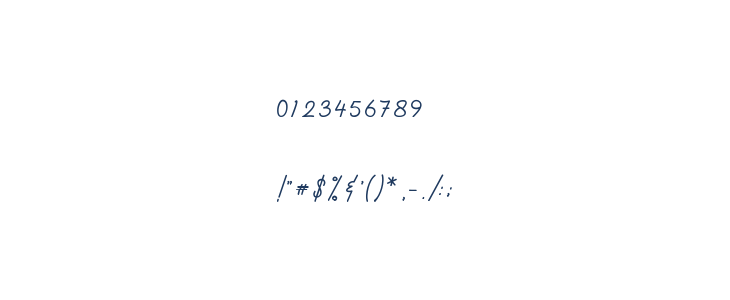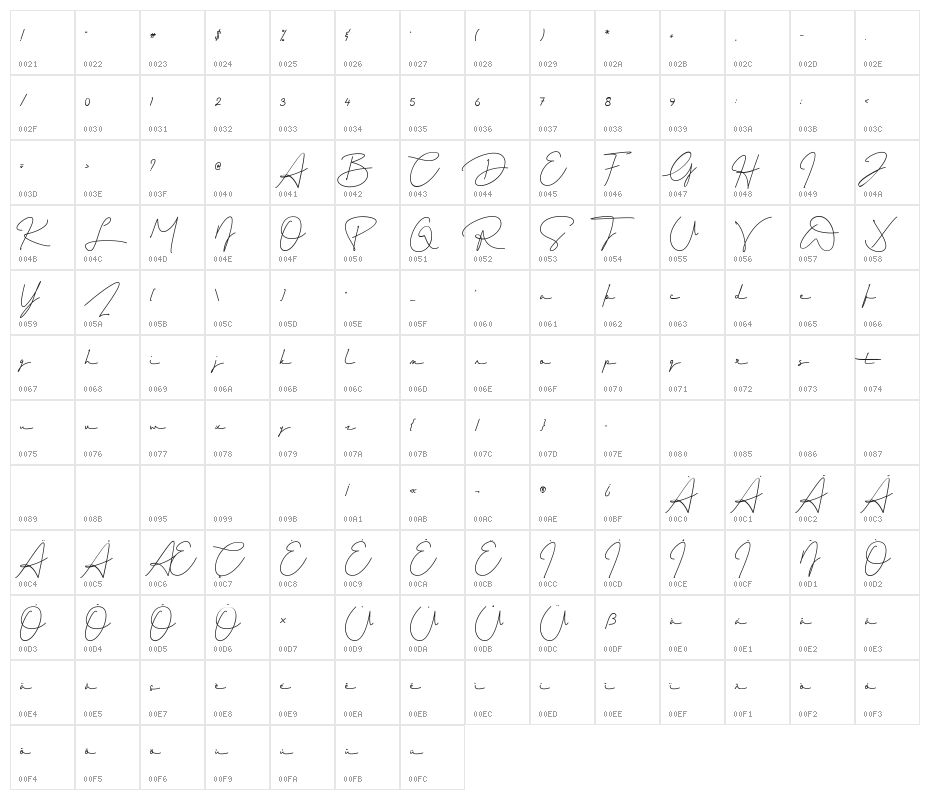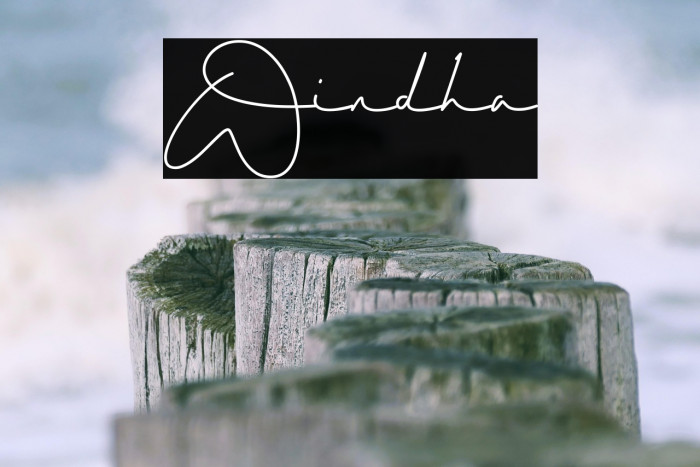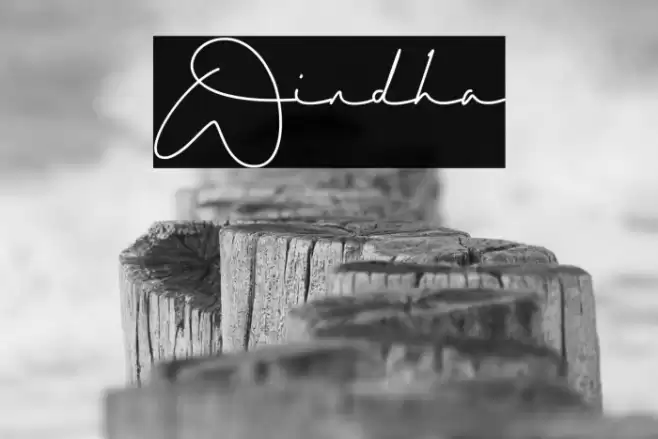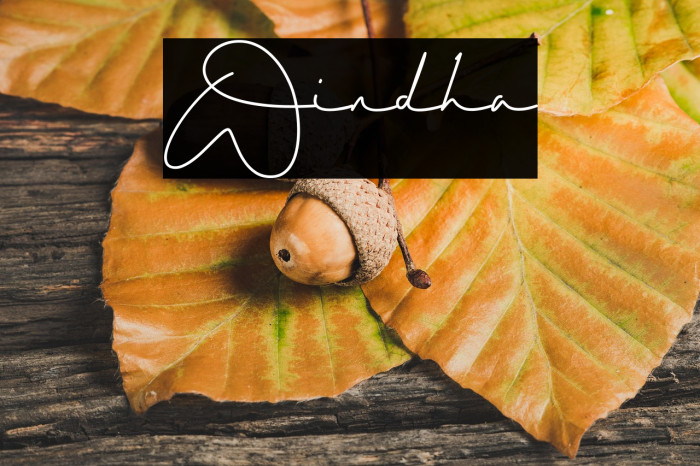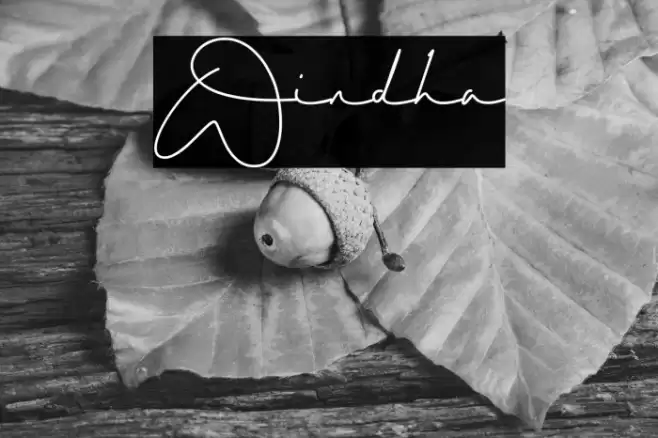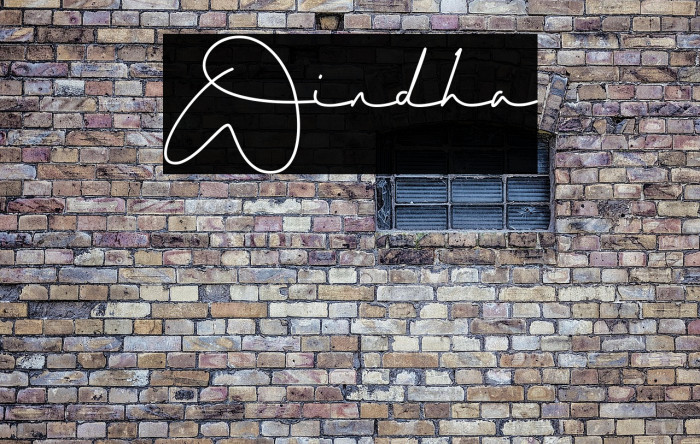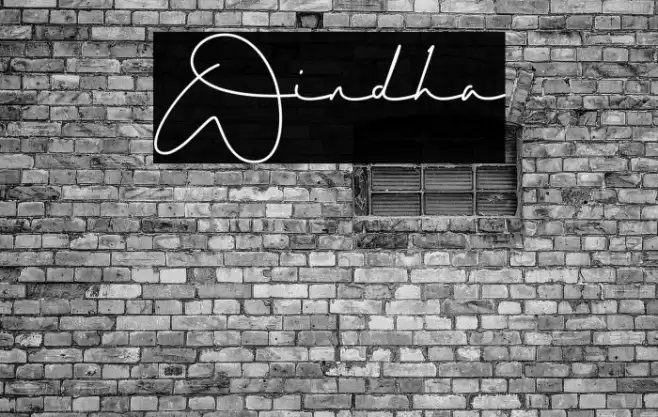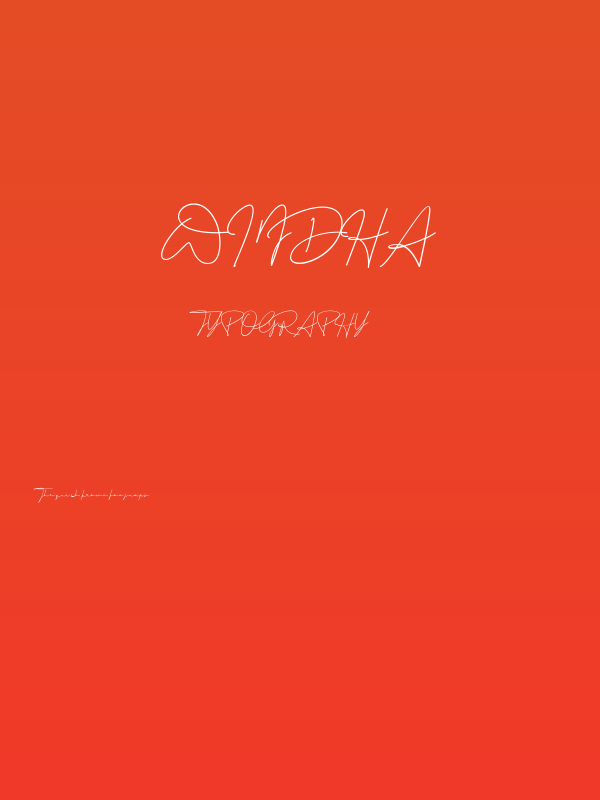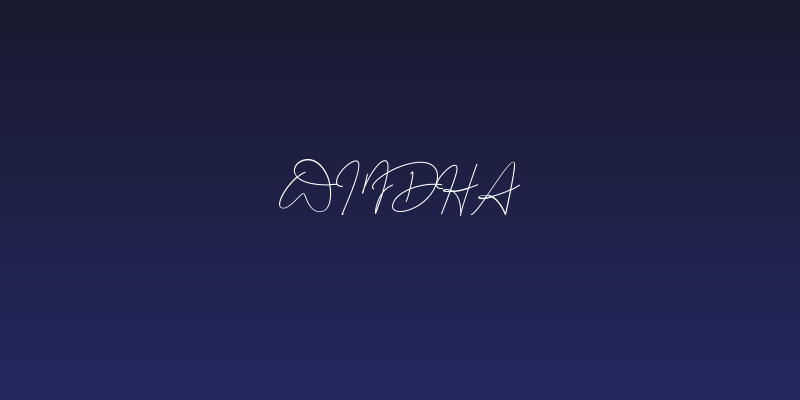
Windha Font
Windha Description
This font features a fluid, cursive style that mimics elegant handwriting. The uppercase letters are large and sweeping, with a graceful flow that connects some of the characters. The lowercase letters maintain a consistent style, with elongated loops and smooth curves that enhance the handwritten feel. The numerals are clear and slightly more structured, providing a nice contrast to the letters. Special characters are included, maintaining the same fluidity and style. This font is perfect for projects that require a personal touch, such as invitations, greeting cards, or branding that aims to convey elegance and sophistication.
| Use Case | Headlines, Invitations, Personal Branding |
| Proposed Projects | Ideal for wedding invitations, personal branding, greeting cards, and elegant stationery. |